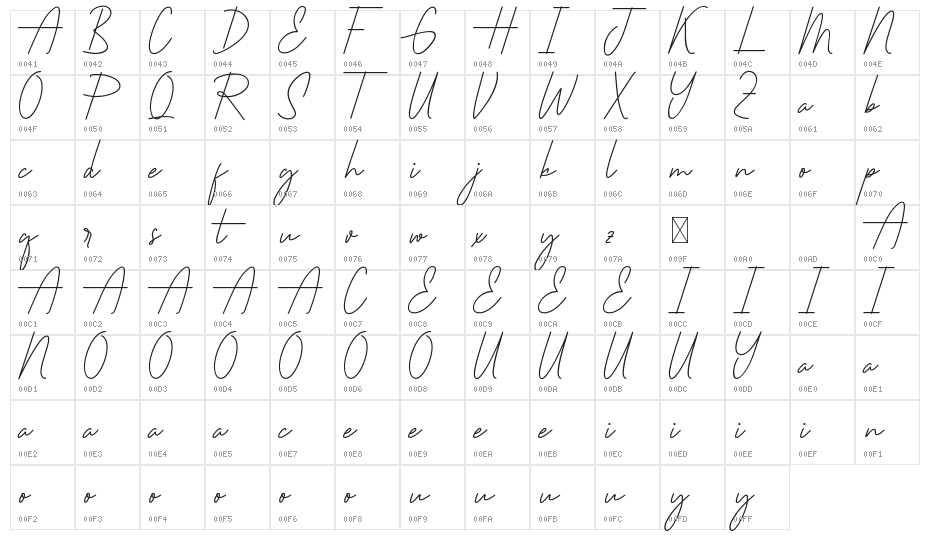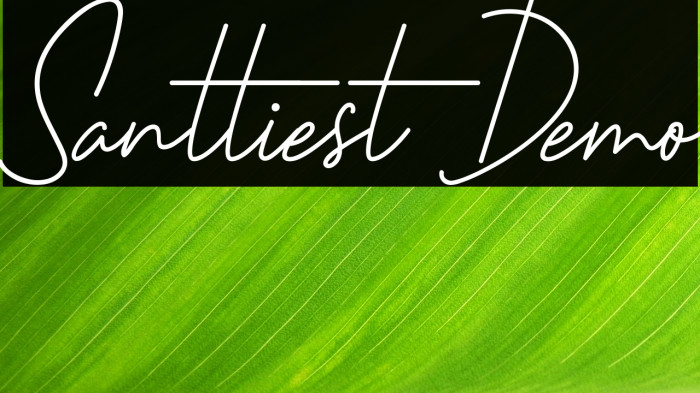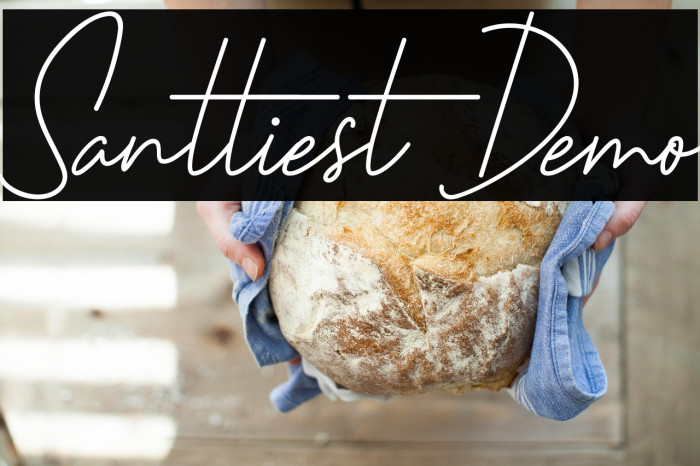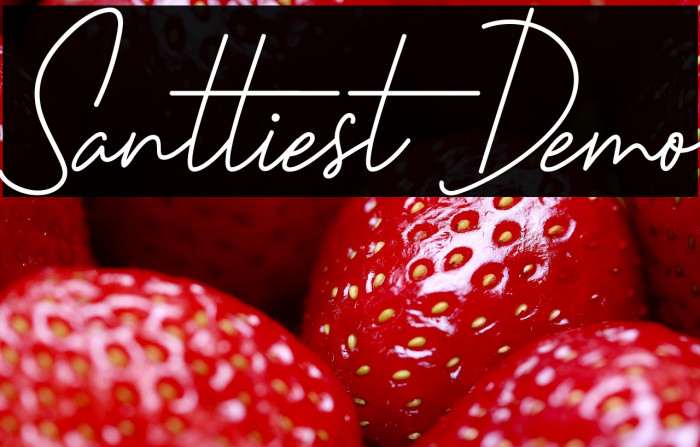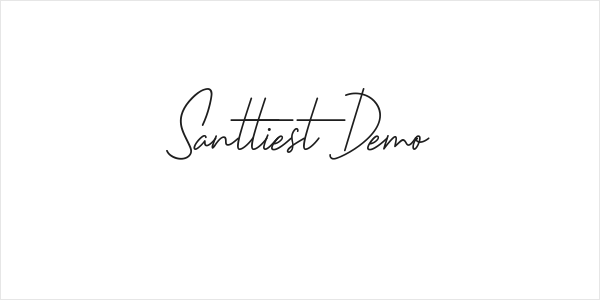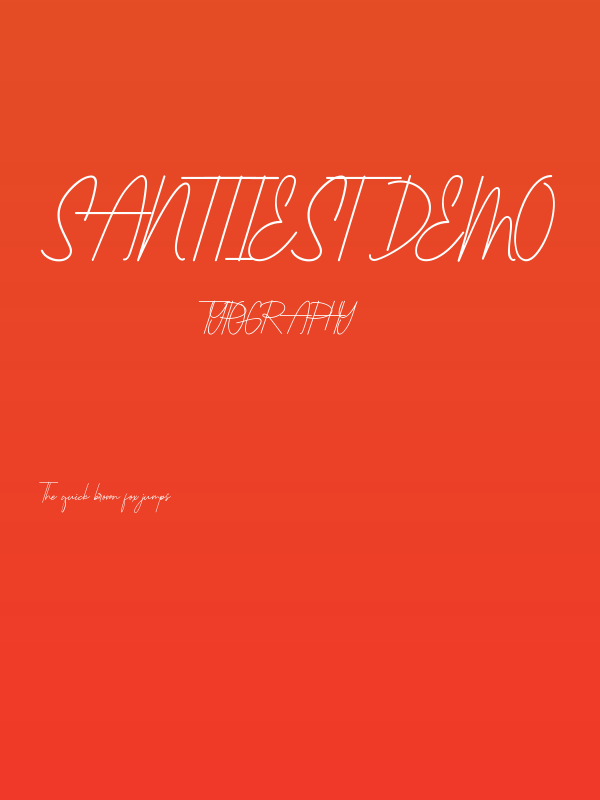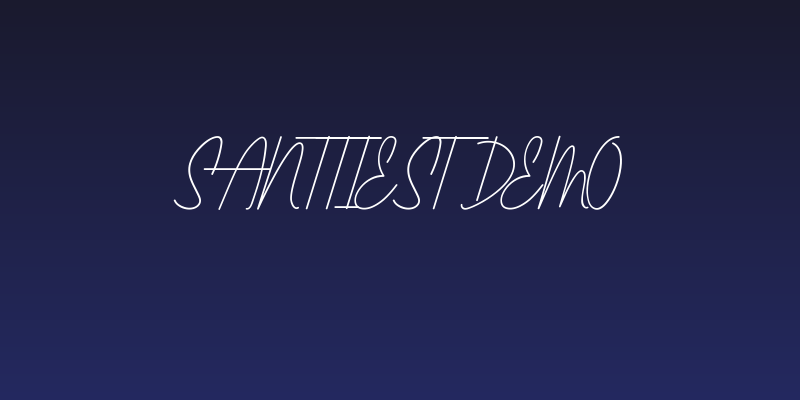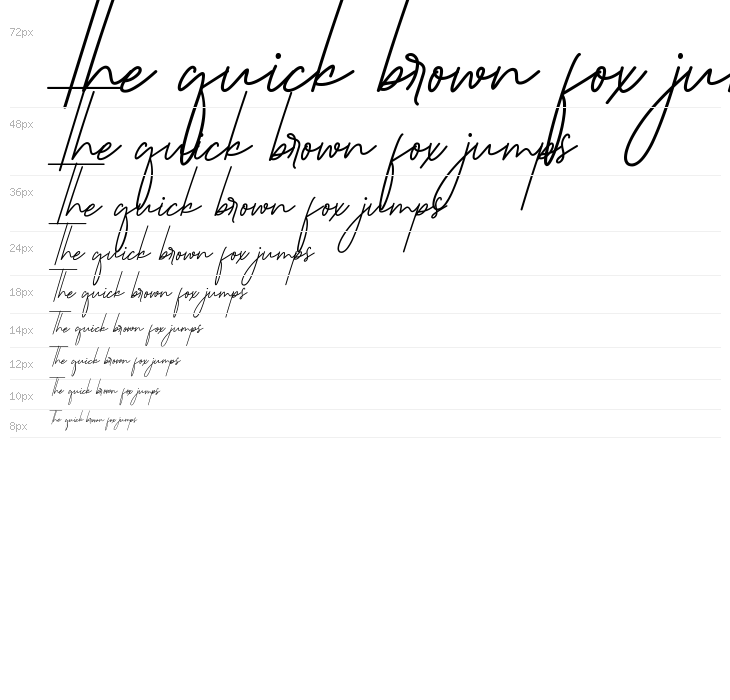
Santtiest Demo Font
Santtiest Demo Description
This font features an elegant, flowing script style that mimics natural handwriting with a modern twist. The letters are elongated and connected, giving a sense of fluidity and movement. The uppercase letters are tall and slender, while the lowercase letters maintain a consistent flow with subtle variations in stroke width. The overall appearance is sophisticated and artistic, making it suitable for creative and expressive projects. The font includes a full set of uppercase and lowercase letters, numbers, and a selection of special characters, ensuring versatility in design applications.
| Proposed Projects | Ideal for wedding invitations, branding, logos, and artistic projects requiring a personal touch. |